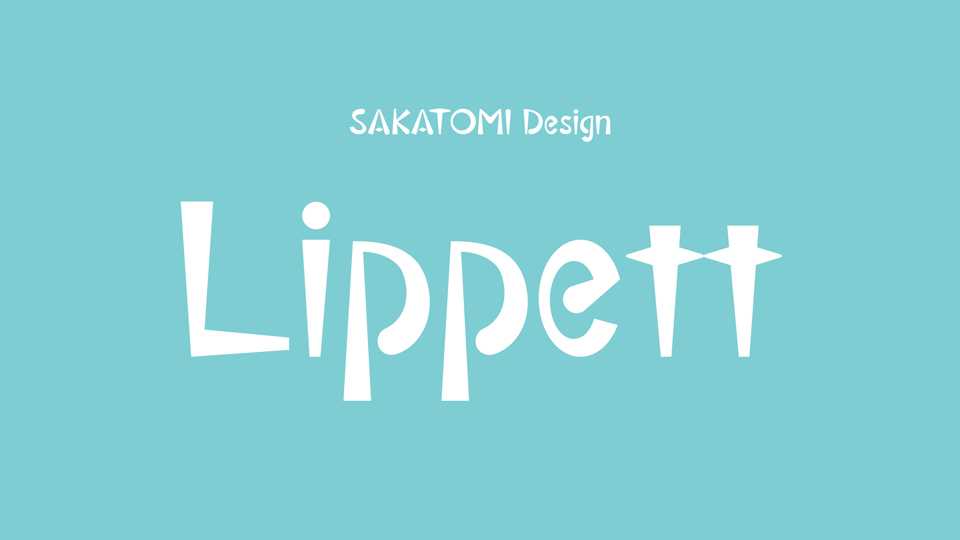
Download Lippet font, a cute and fun typeface with a friendly character. It will perfectly fit for children’s projects or funny posters and graphics, cartoons and animations.
Designer: SAKATOMI Design